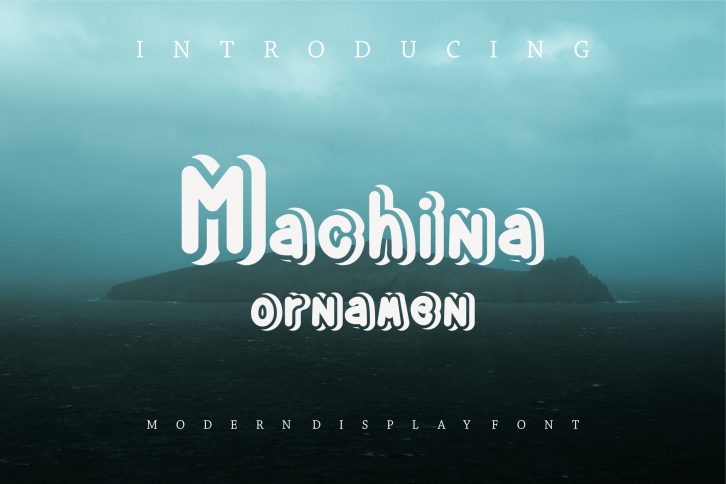
Machina Ornamen is a cool and fun display font. No matter the topic, this font will be an incredible asset to your fonts’ library, as it has the potential to elevate any creation.